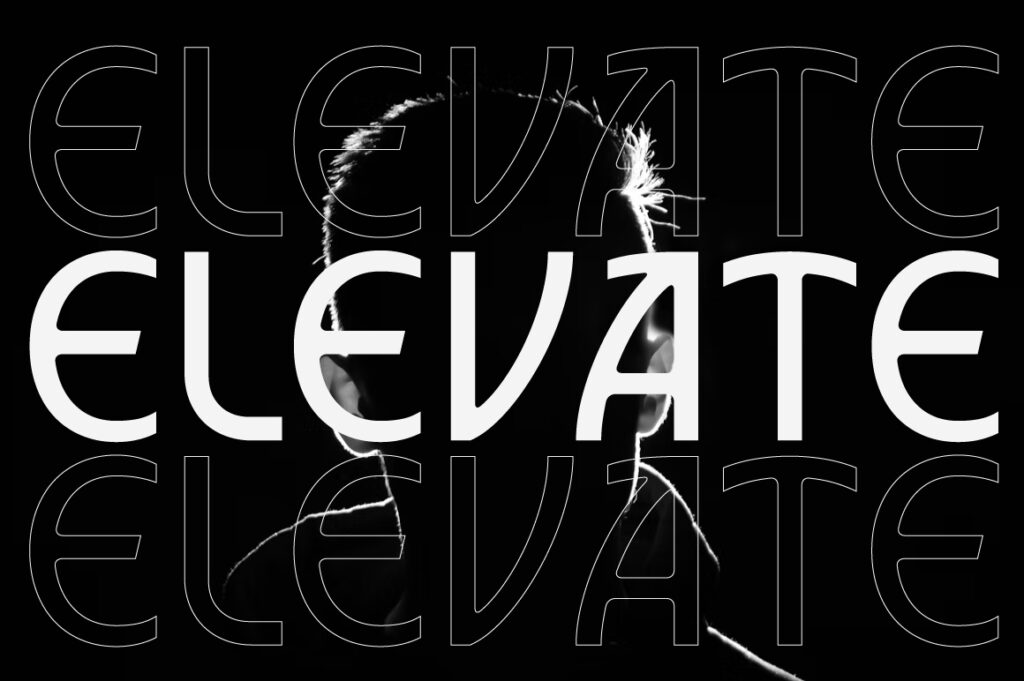
Why Display Fonts Are Making a Comeback
✦ The Age of Expression Returns
For years, minimalism ruled the design landscape — clean sans-serif, neutral palettes, and calm tones dominated brand identities. But in 2025, we’re witnessing a shift: bold, expressive display fonts are making their grand return.
Why? Because audiences crave emotion. After a decade of minimal branding, designers are rediscovering the power of type as a visual voice. Display fonts — with their dramatic forms, curves, and energy — inject personality back into design.
From fashion brands to indie creators, everyone wants to stand out again, not just blend in.
✦ Beyond Function — Toward Character
Display fonts are not about readability at 8pt — they’re about impact. They introduce identity in a single glance. Each stroke, serif, or texture carries intention.
Fonts like Cardival, Gamola, and Imperial Aureas from LTS show this revival: luxurious shapes, wide contrast, and bold typographic character built for logos, packaging, and editorial titles. Designers are using these fonts to turn ordinary layouts into statements.
This movement isn’t nostalgia; it’s evolution. Modern display fonts blend expressive DNA with better kerning, multilingual support, and flexible licensing — making them practical as well as powerful.
✦ The Emotional Edge
Every brand competes for attention, and typography is its first handshake. Display fonts give emotion to minimal layouts, warmth to tech brands, and drama to luxury goods. They humanize design in a digital world that often feels algorithmic.
So while minimal sans-serifs still dominate UI and text use, display typefaces are reclaiming the spotlight — quite literally. Expect to see them in 2025 campaigns, billboards, and homepage headlines everywhere.
✦ A Balanced Future
At Lettertype Studio, we see the future of typography as balanced: minimal sans for clarity, expressive display for emotion. Together, they build visual brands that speak both rationally and emotionally.
The comeback of display fonts is more than a design trend — it’s a reminder that personality sells.